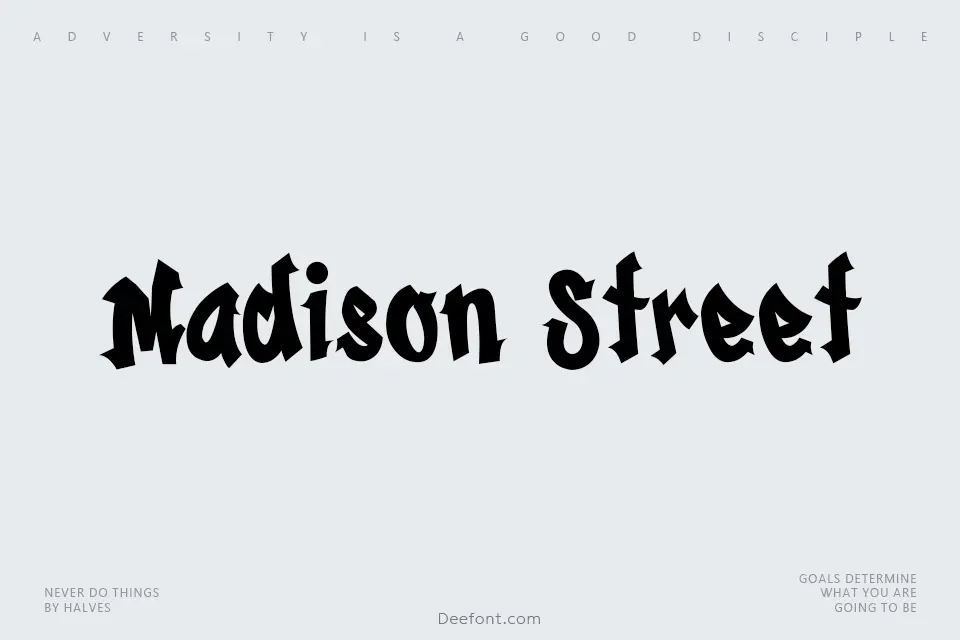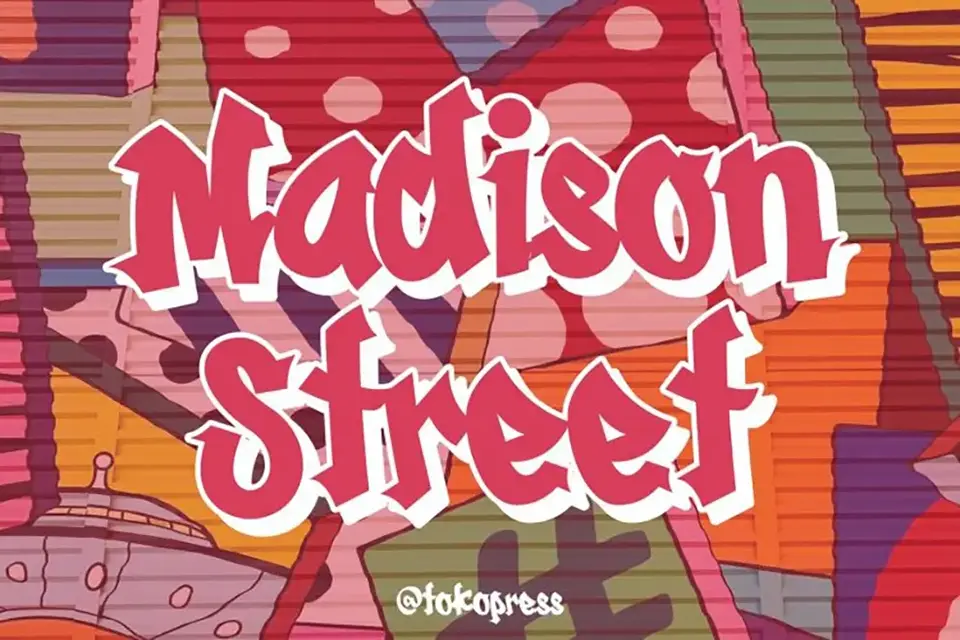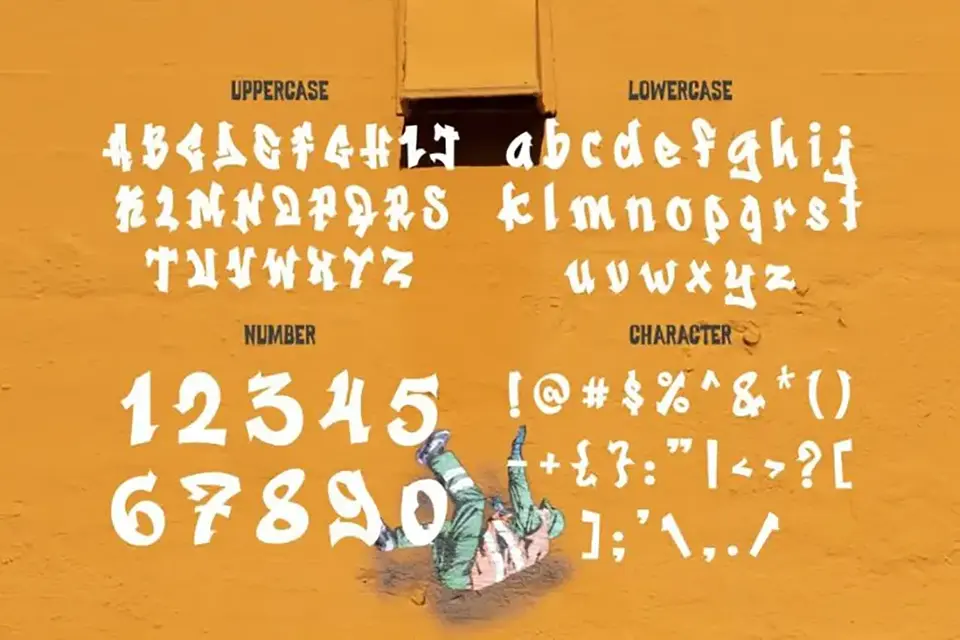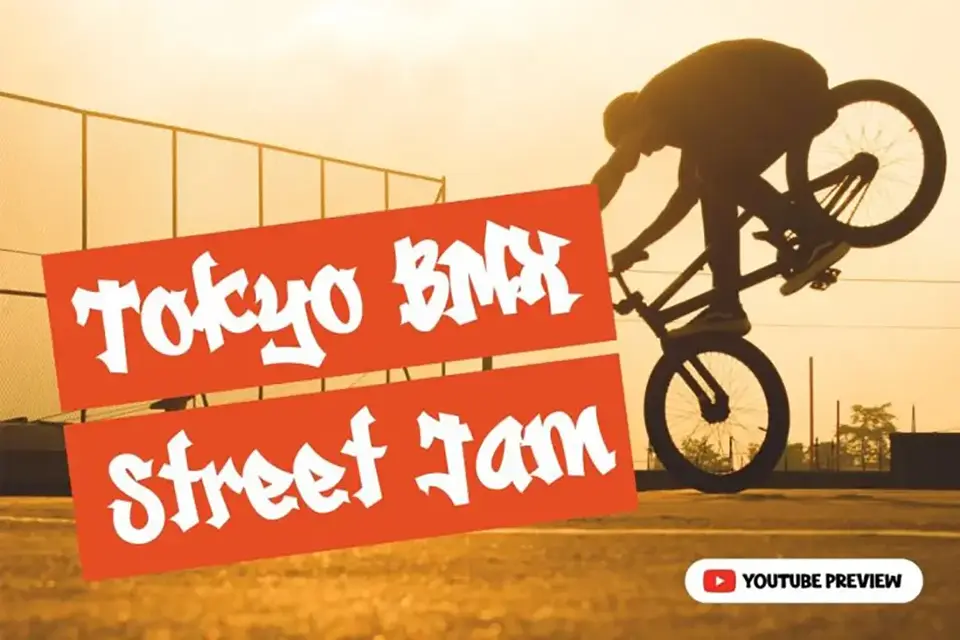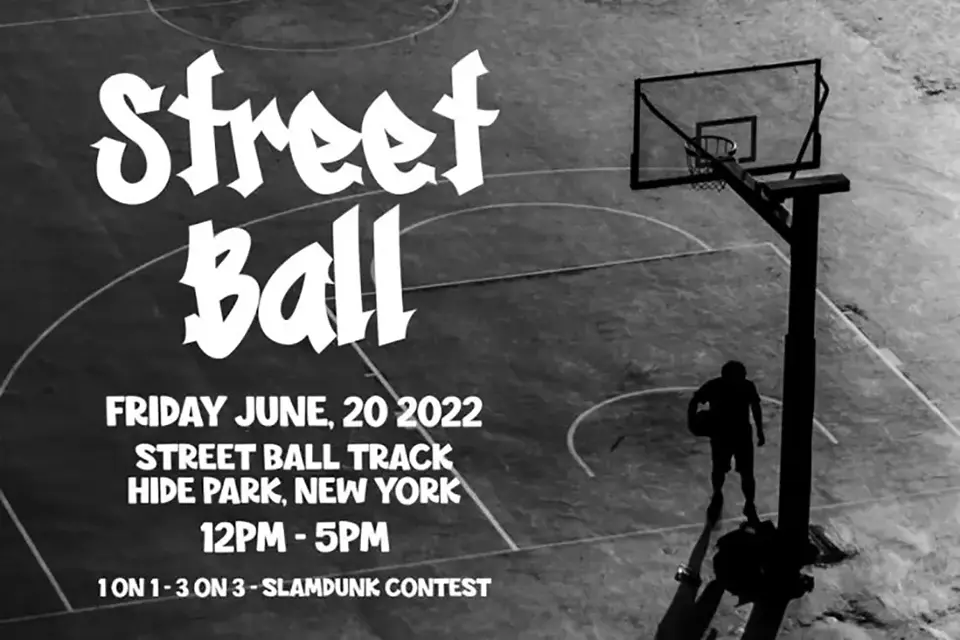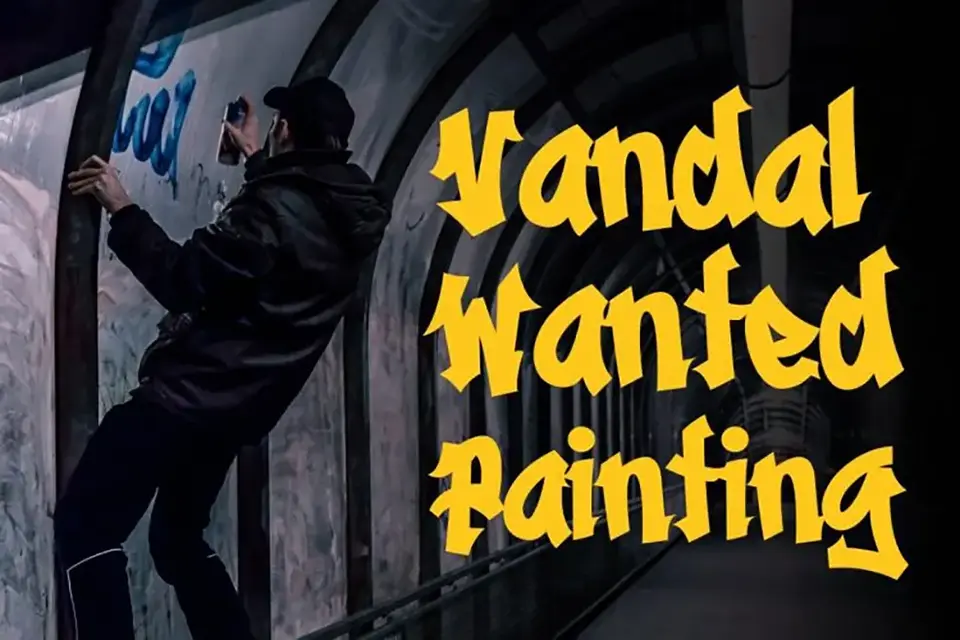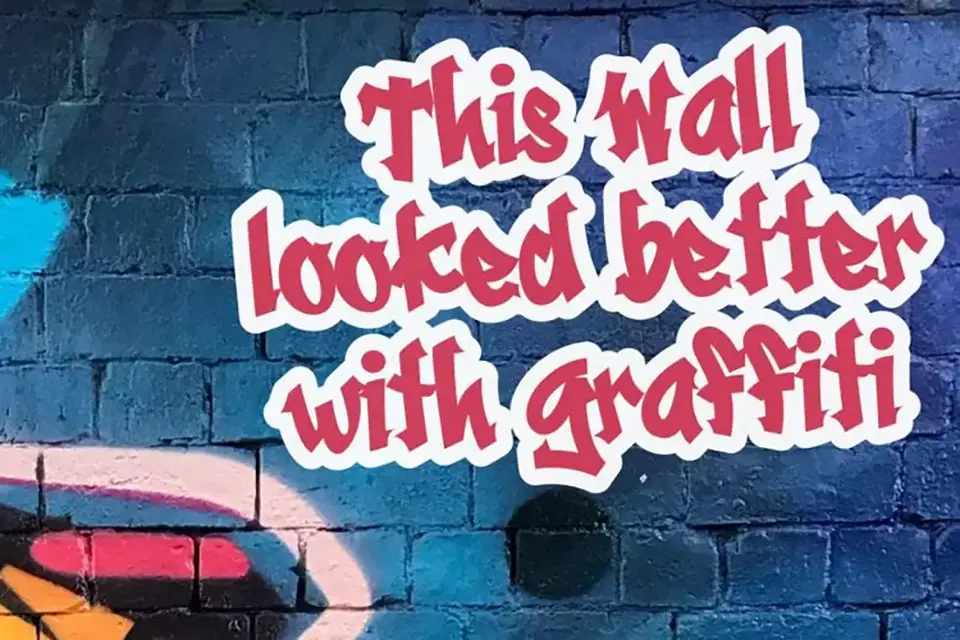
Madison Street Font
Madison Street is a bold and dynamic graffiti-inspired display font designed by Tokopress that captures the rebellious energy of street art and extreme sport culture. Perfect for creating eye-catching typography with its heavy, confident strokes and distinctive urban aesthetic, this font excels in projects requiring a modern, edgy style. Whether used for t-shirts, sportswear, logos, advertisements, or social media graphics, Madison Street brings a stylish and contemporary flair that transforms ordinary designs into striking visual statements, making it an ideal choice for designers seeking to add personality and street-smart appeal to their creative work.